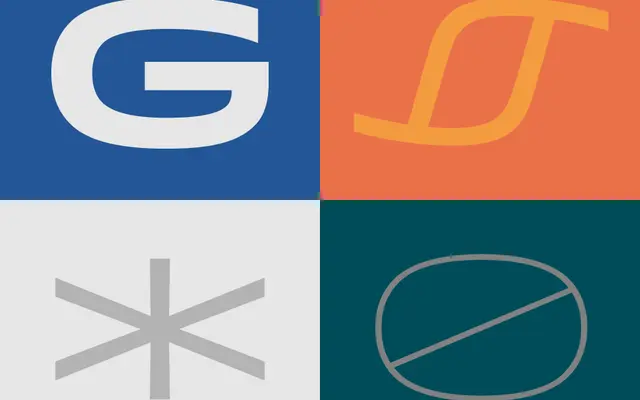
Idlewild
Hoefler & Co · Jonathan Hoefler and the H&Co Design Studio · 2013
Idlewild specimen from Hoefler & Co
A geometric display sans in three widths inspired by mid-century travel and transit lettering, made for headlines and signage.
A geometric display sans by Jonathan Hoefler and the H&Co studio, drawing on the lettering of mid-century travel posters, airline graphics and transit systems. It comes in regular, wide and extra wide widths across five weights, giving it the airy poise of jet-age signage. Suited to headlines, packaging and identity work that wants the optimism of the period without slipping into pastiche.
A geometric sans for display sizes inspired by mid-century lettering on travel posters, transit signs and airline graphics, drawn in three widths for headline use.